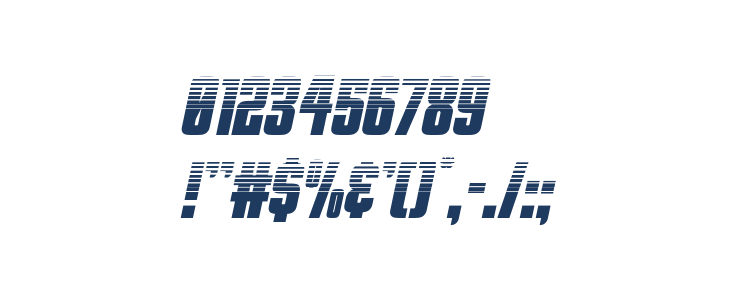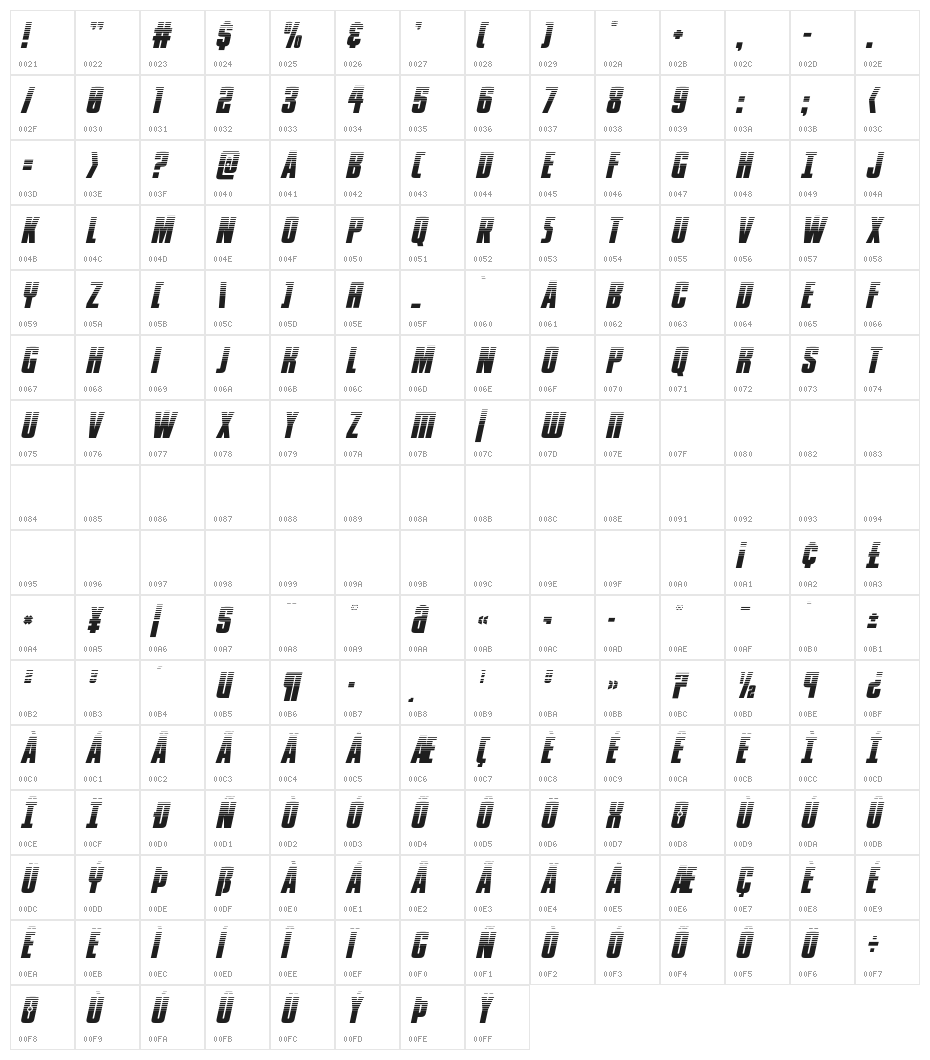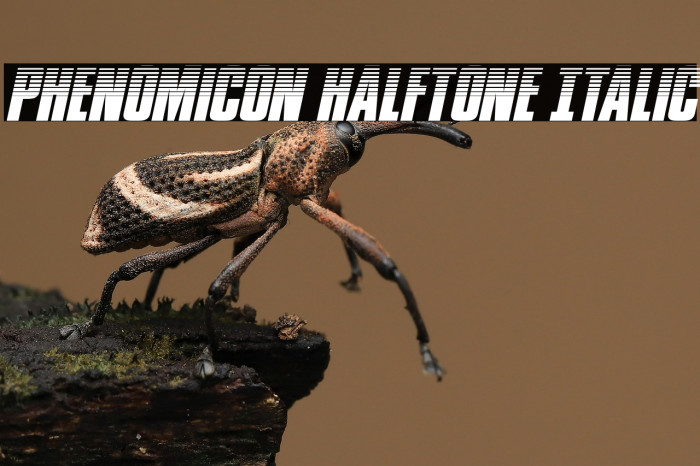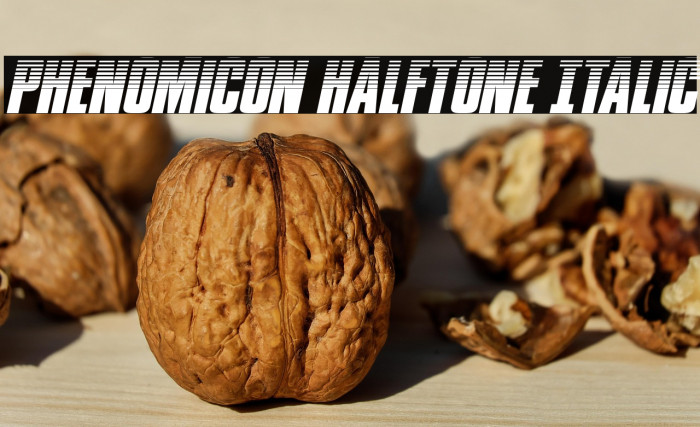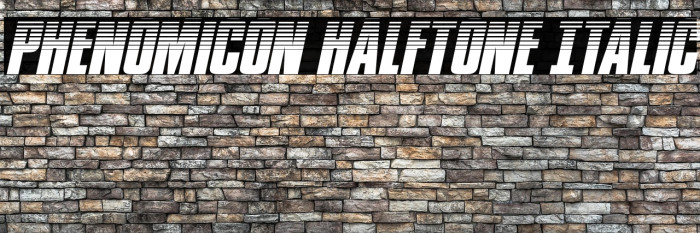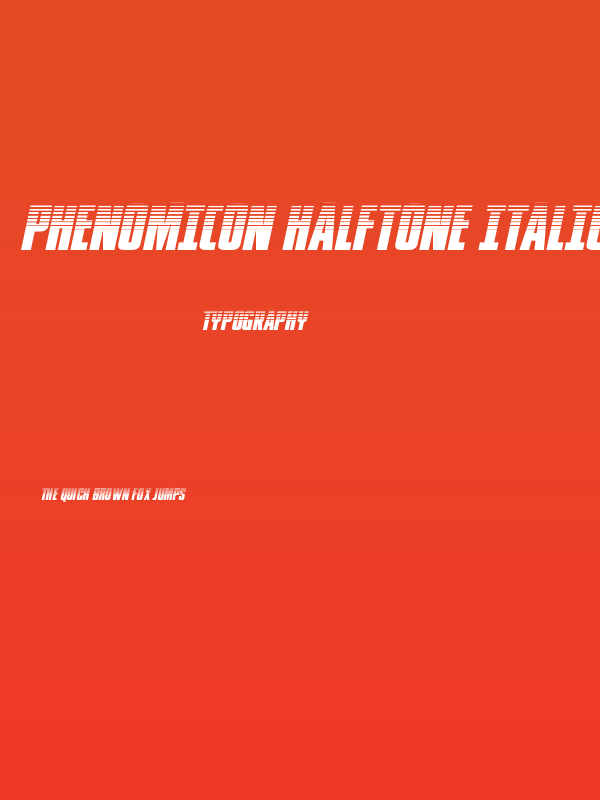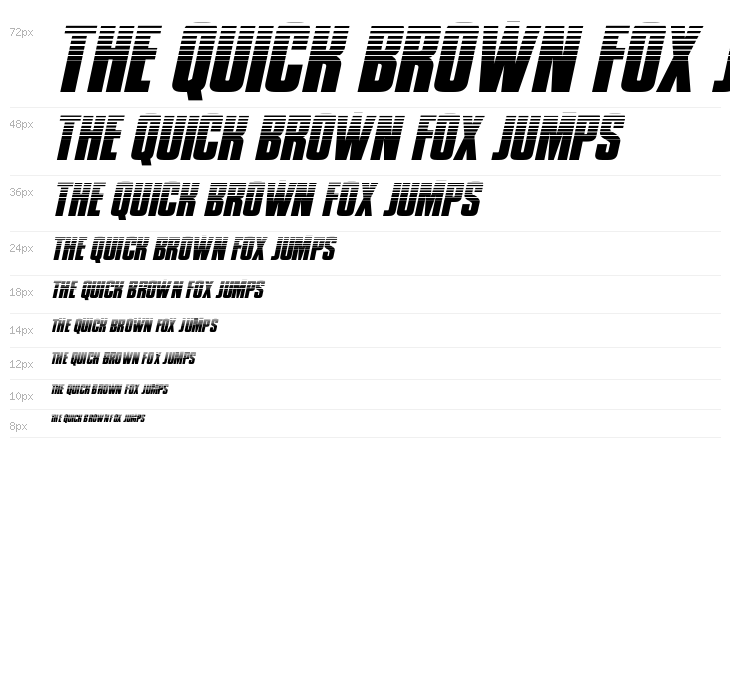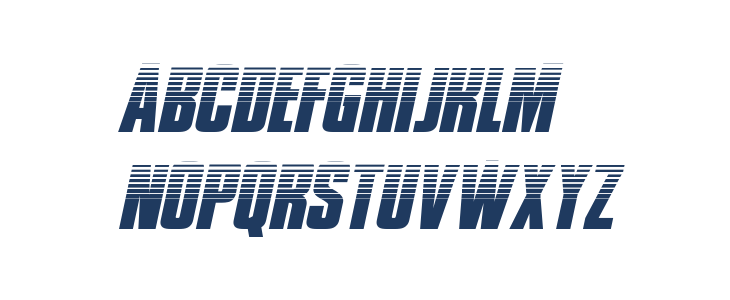
Phenomicon Halftone Italic Font
Phenomicon Halftone Italic Description
This font features a bold and dynamic style with a halftone effect that gives it a unique, modern appearance. The characters are italicized, adding a sense of motion and energy. The uppercase letters are prominent and impactful, while the lowercase letters maintain the same stylistic elements. The numbers are equally bold, ensuring consistency across all characters. Special characters are included, maintaining the same halftone and italicized design. The font's overall look is striking and would stand out in any design project.